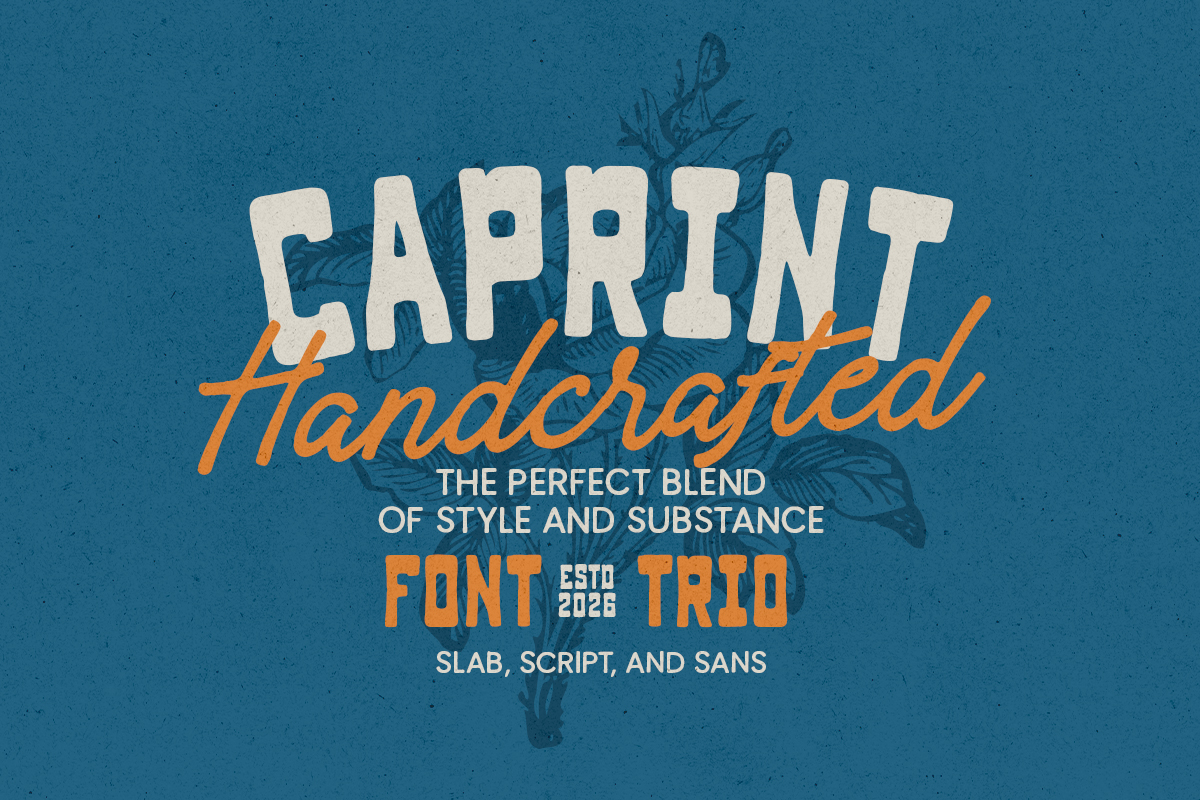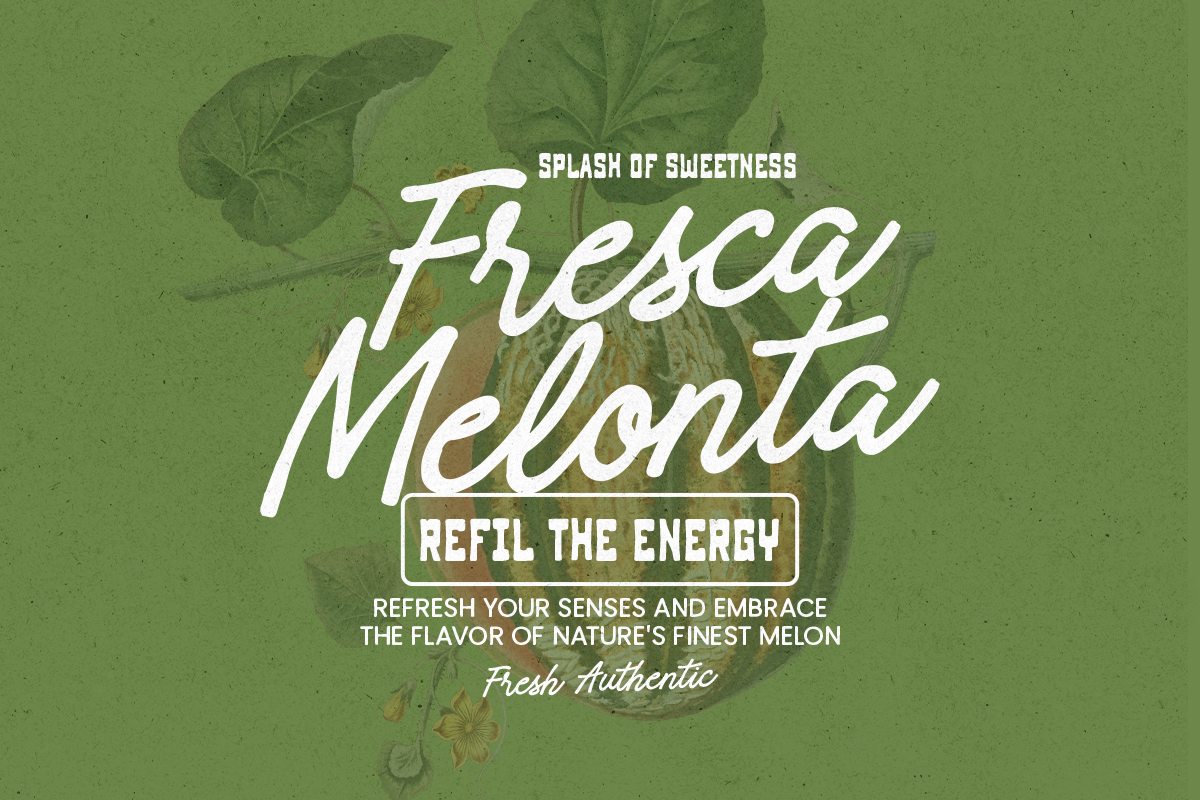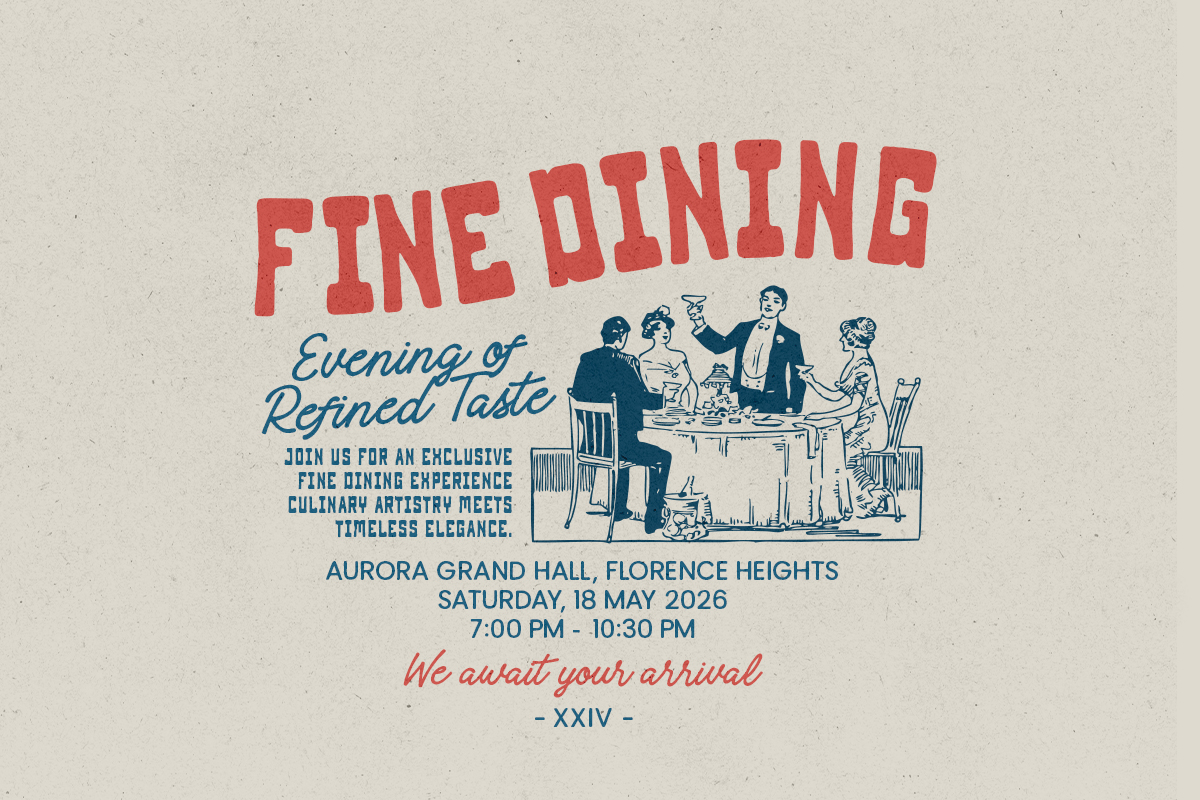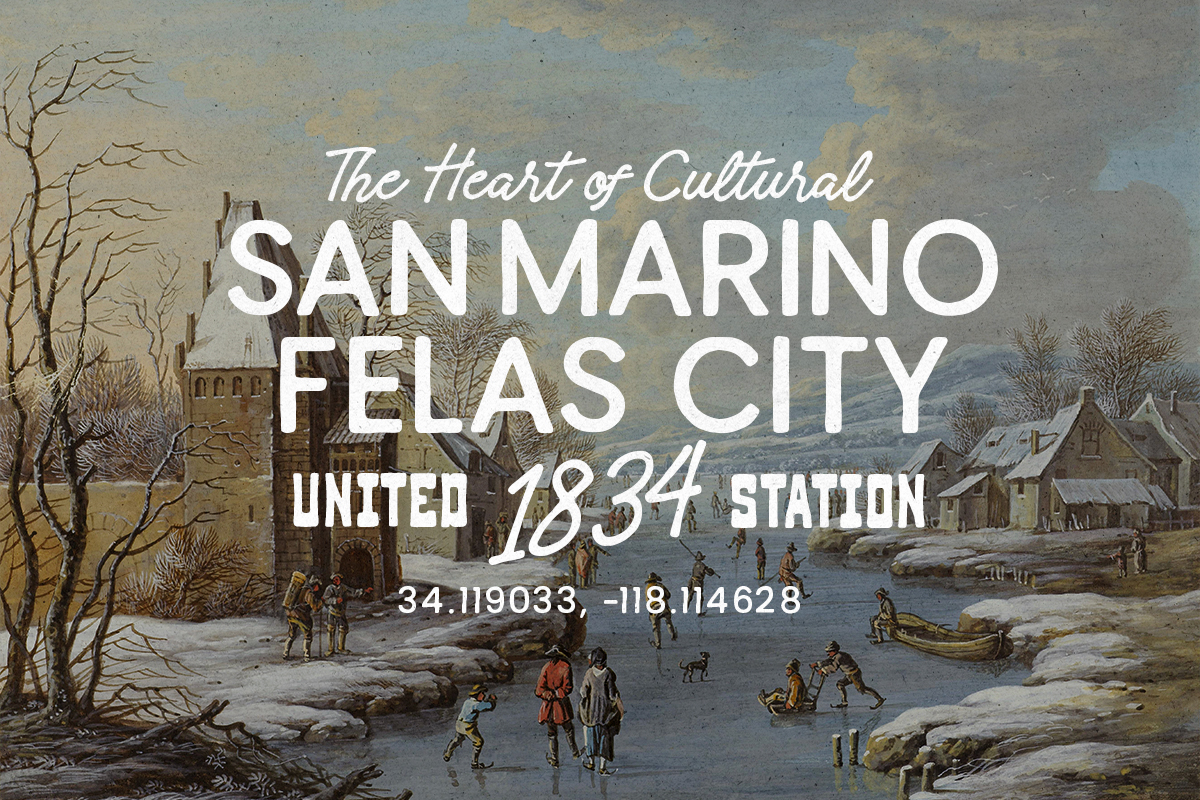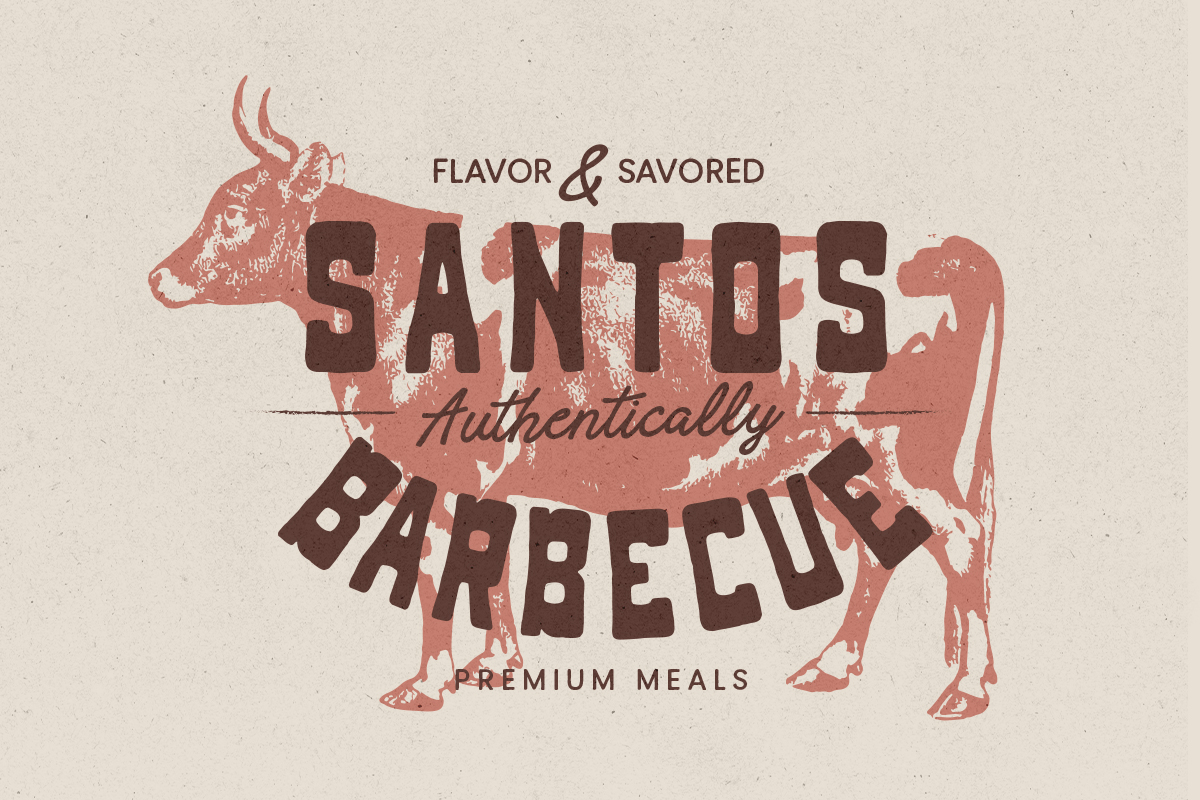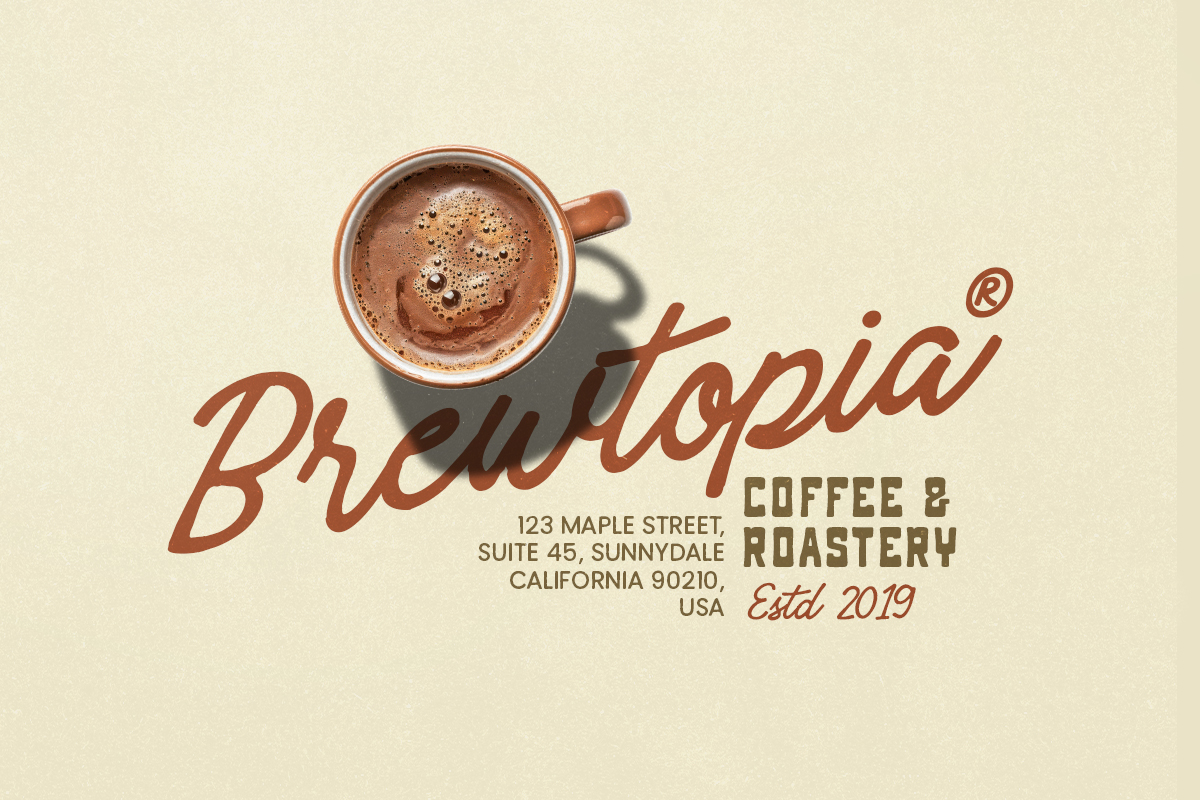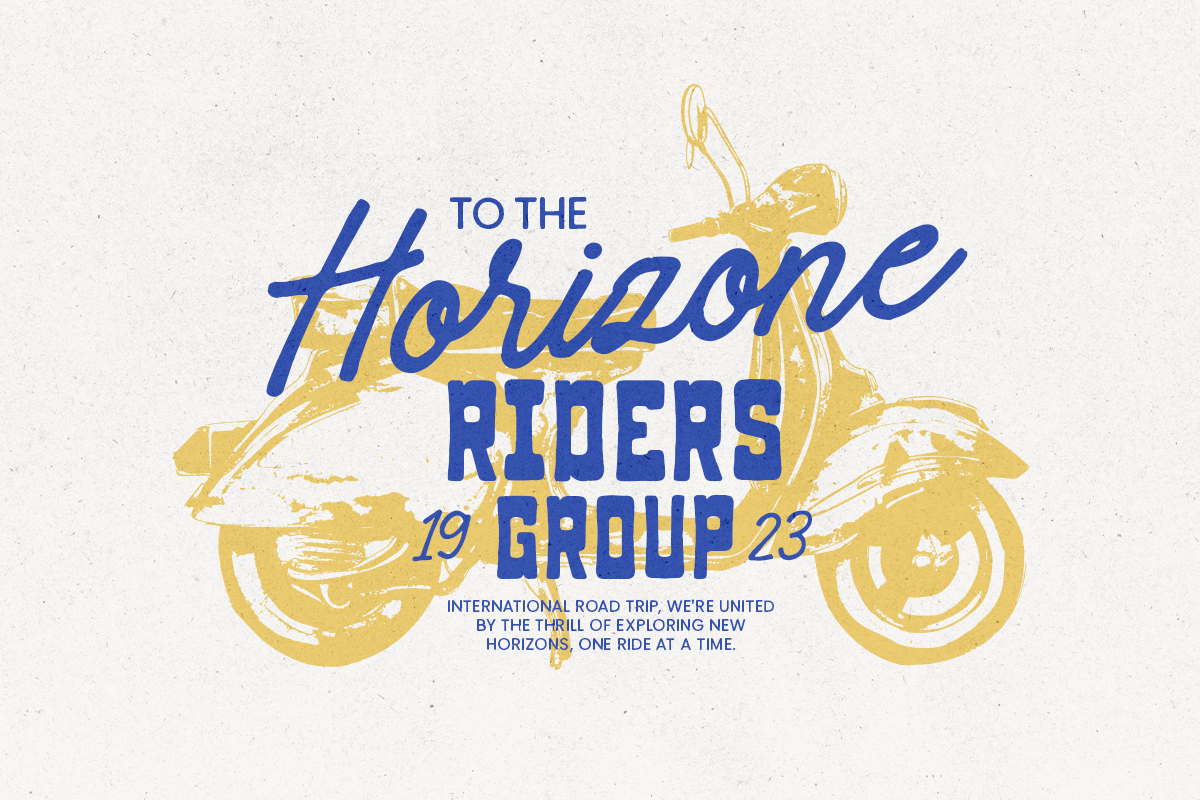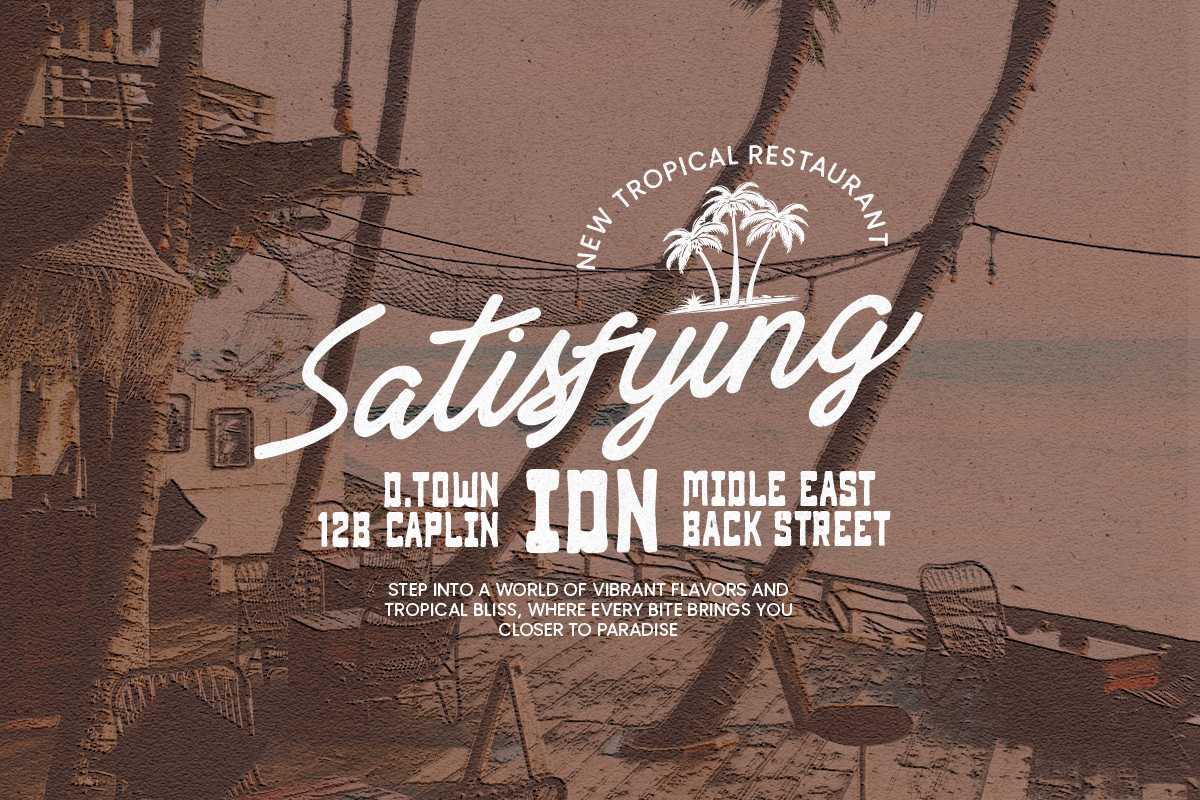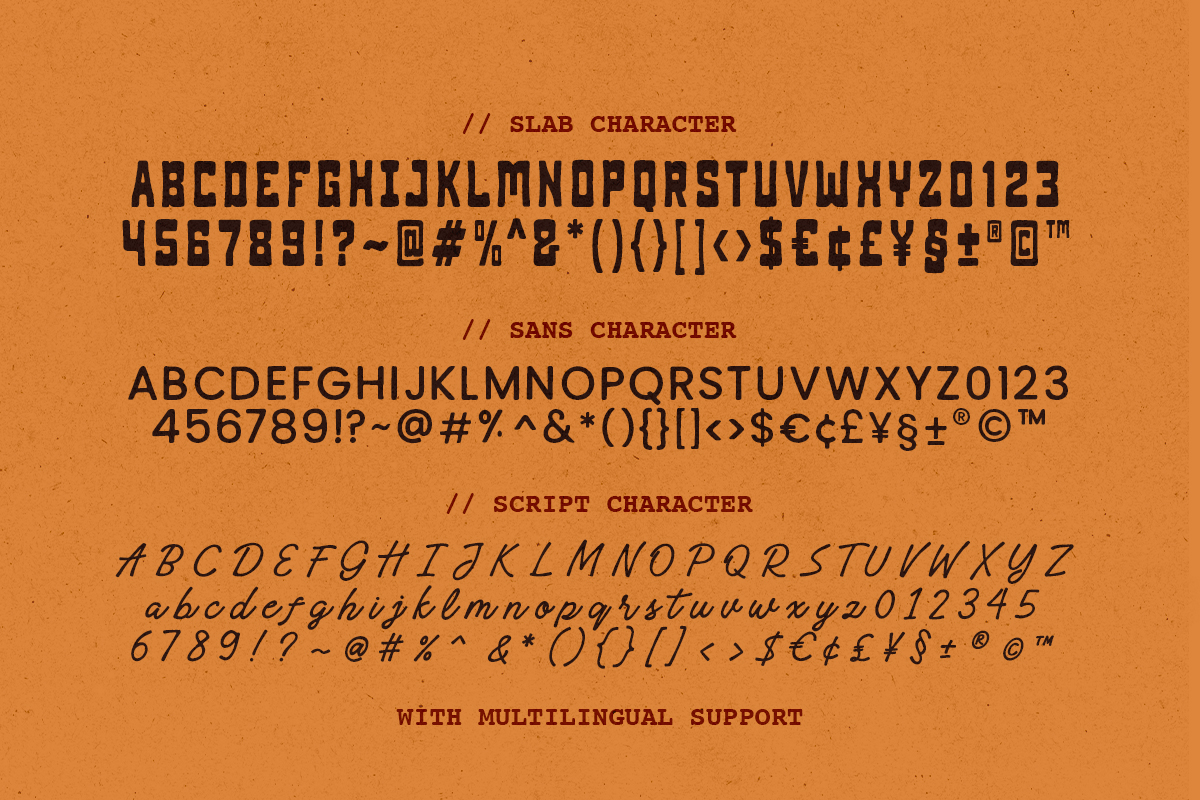
Caprint is a font trio with handcrafted and organic looks. Including bold slab serif, minimalist sans and handwritten script that you can use to make stunning logotype. You can use this font for any purposes, such as logo font, poster, quotes, or any project that need outdoor and cowboy themes. This font trio also support multi language.
Caprint – Handcrafted Font Trio
Caprint is a font trio with handcrafted and organic looks.